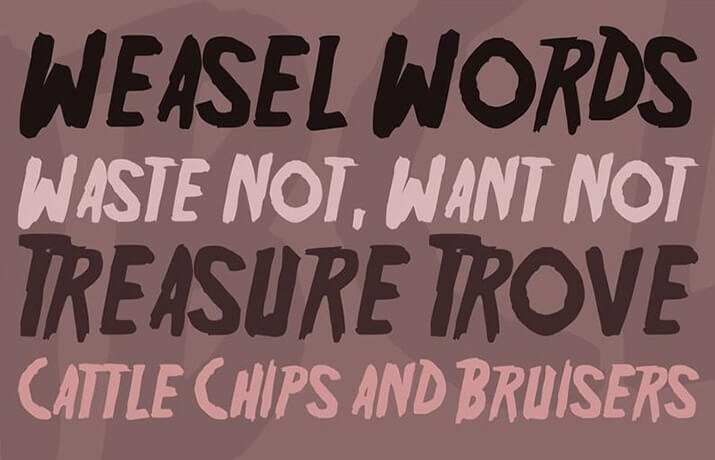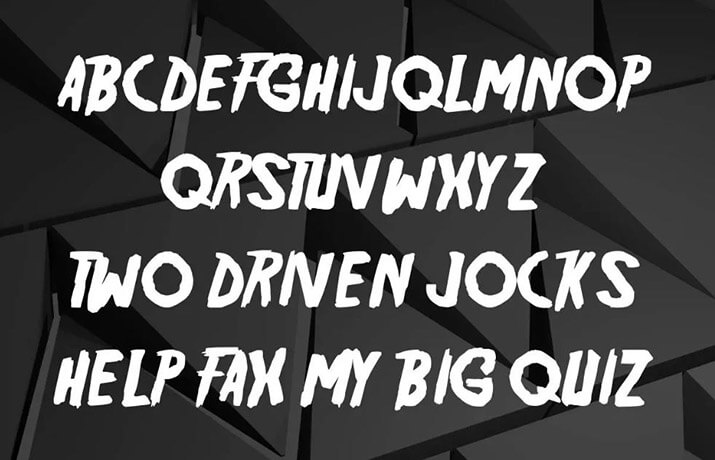
Introducing a fancy, horror typeface Friday the 13th Font is basically a slasher film that was released in 1980. This movie has 11 series and the new one was released in 2009.
This classic font family is used for a variety of popular American movies. This typeface also provides a great interface to comic books and various novels.
A large number of graphic designers and text designers like to use this font in their projects because it provides more and better responses.
For the first time, Friday the 13th font was published by Thomas W. Otta. It is the best choice to increase the importance of your project.
Many designers are already working with this font, you can also keep it and create some unique logos, poster textures, tattoos, stickers, banner designs, movie titles, and much more.
This stunning font comes in three different and attractive styles. Some of its styles are NFI and SH. This typeface is available in 79 fixed characters. It also has 79 Glyphs.
These fonts are designed with heavy strokes to make them perfect for providing a clear look all fancy.